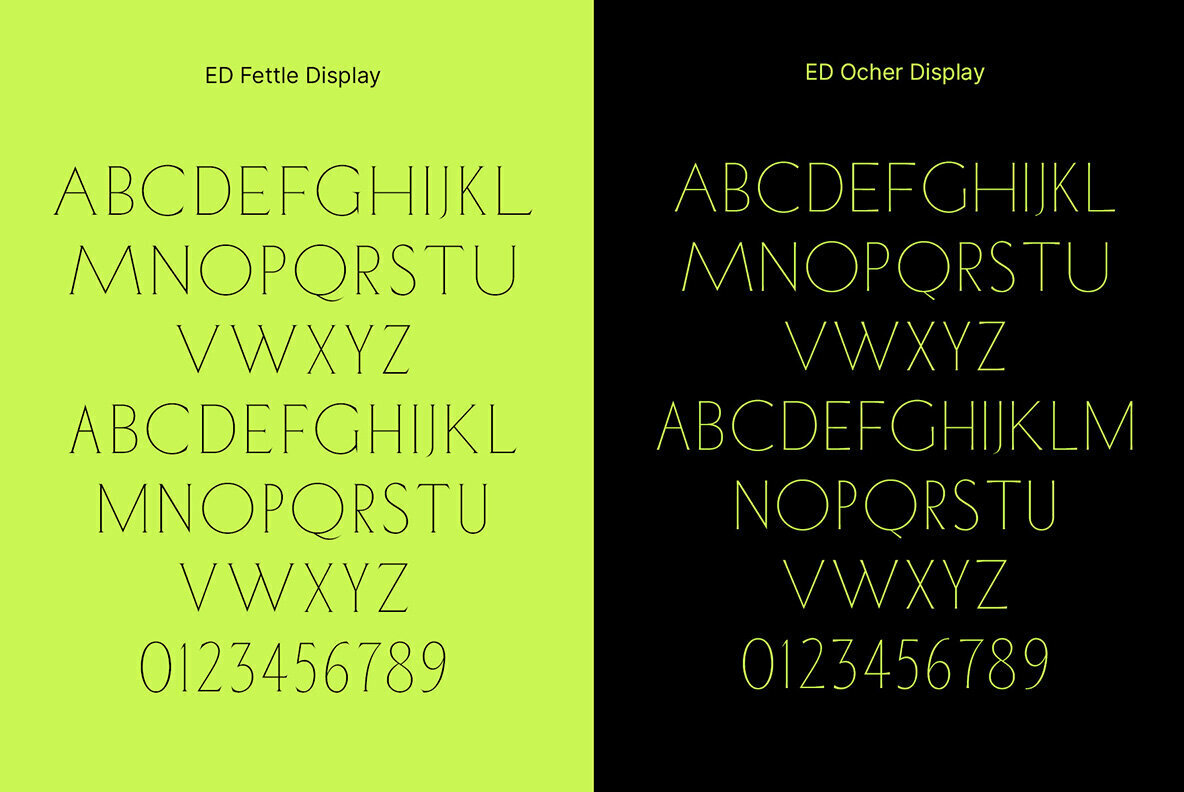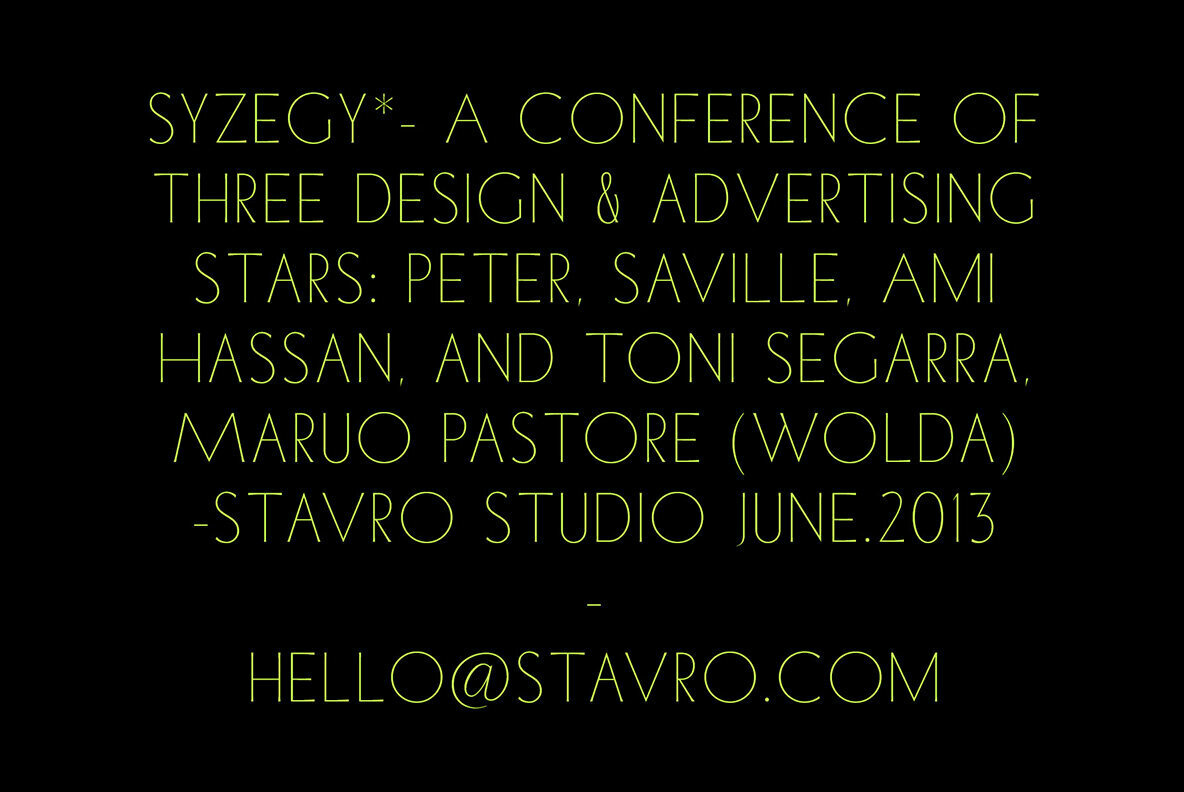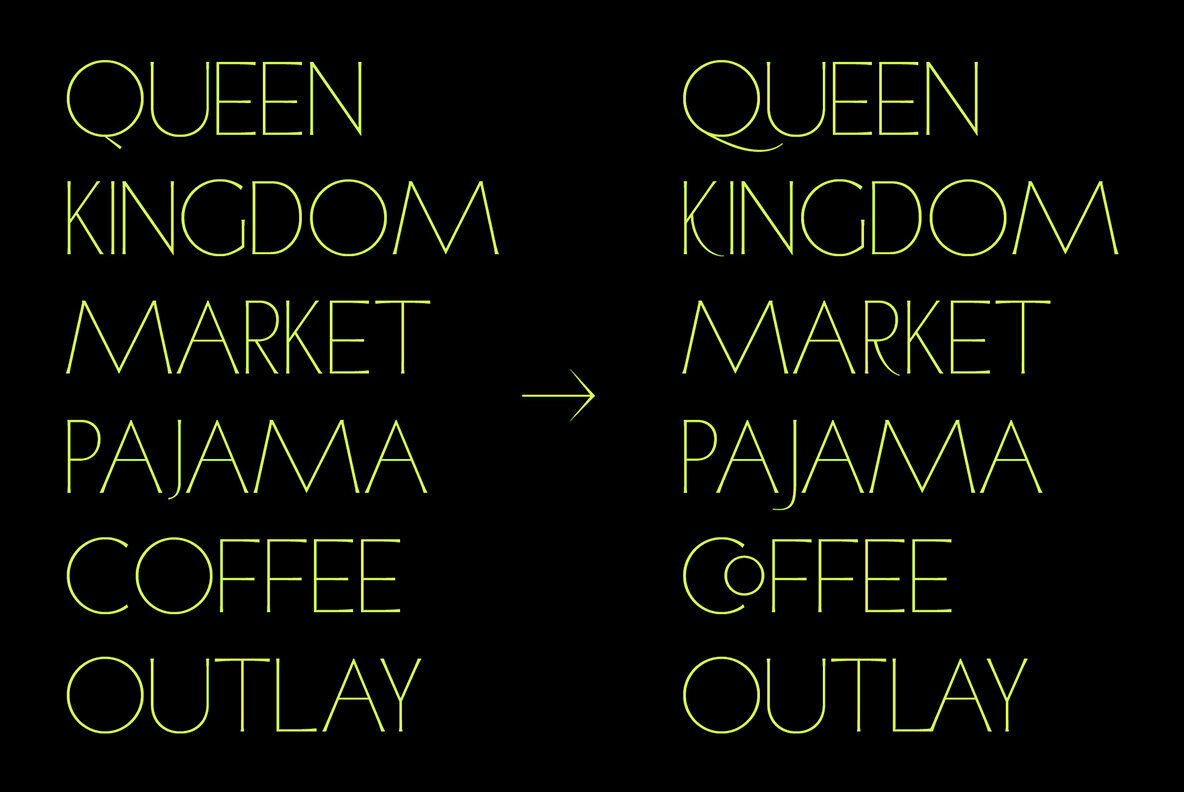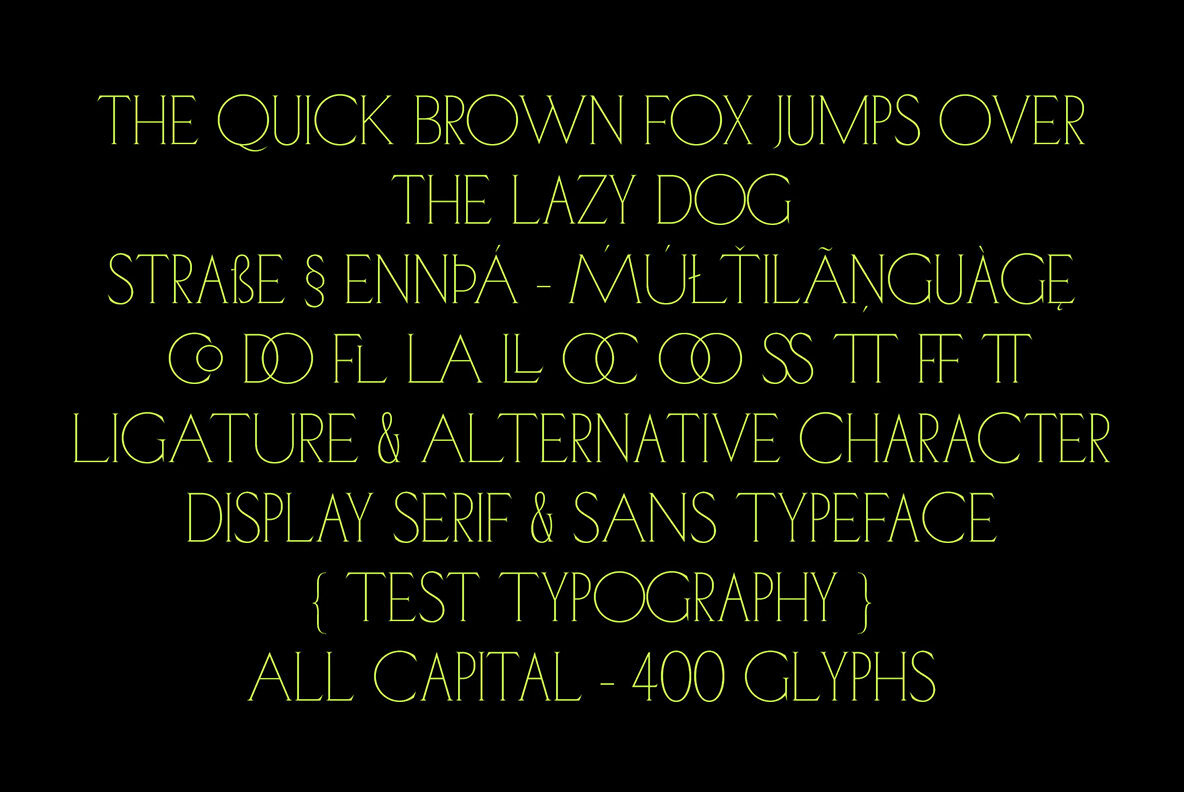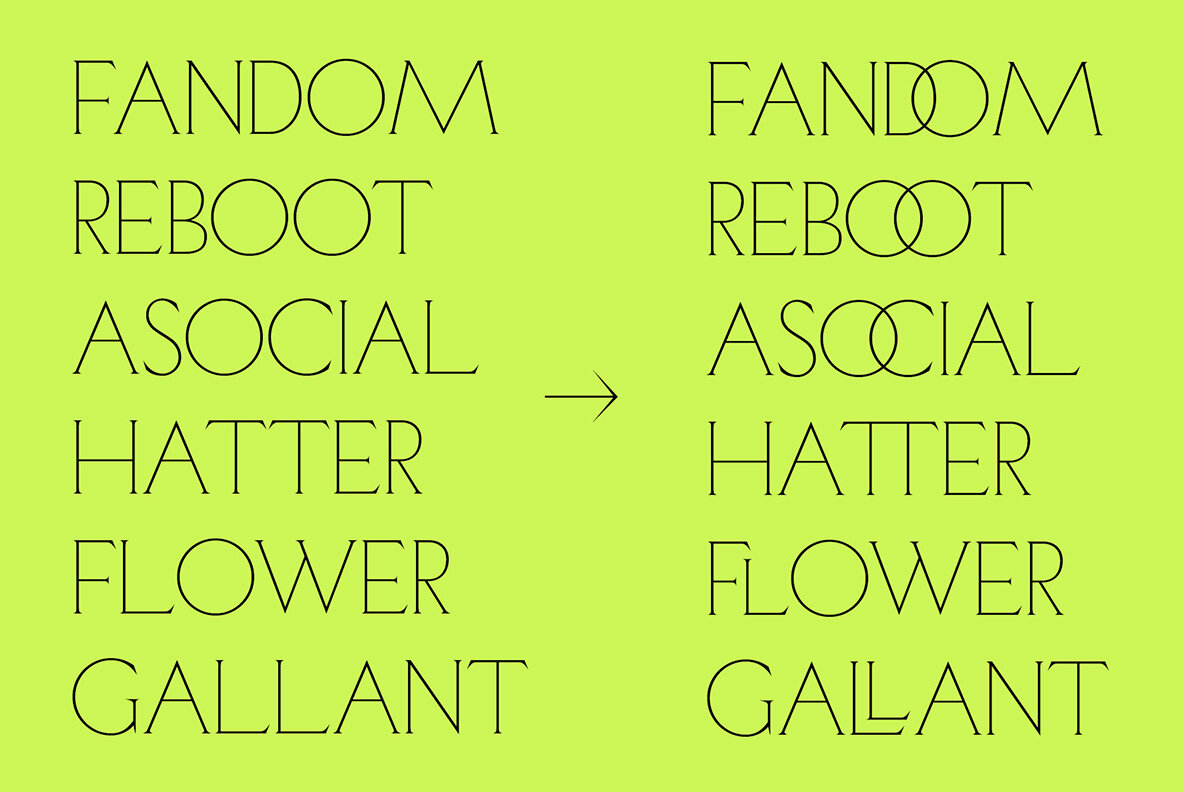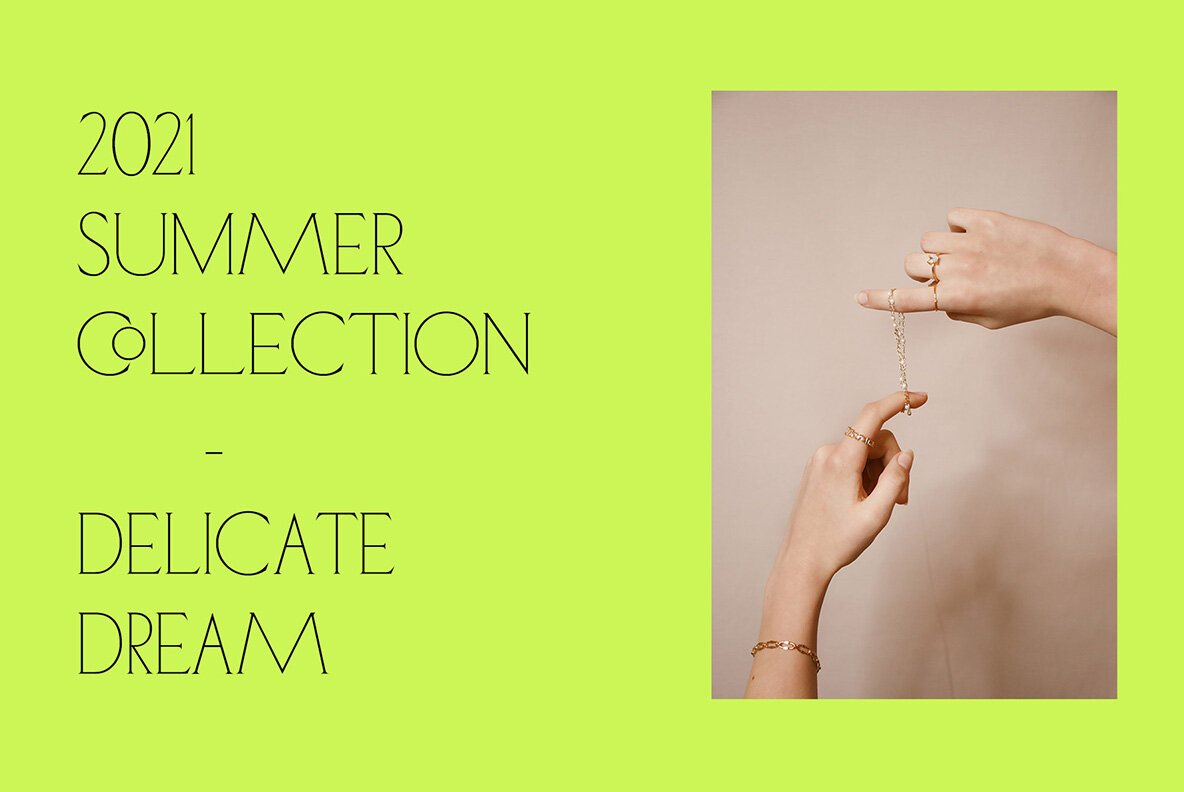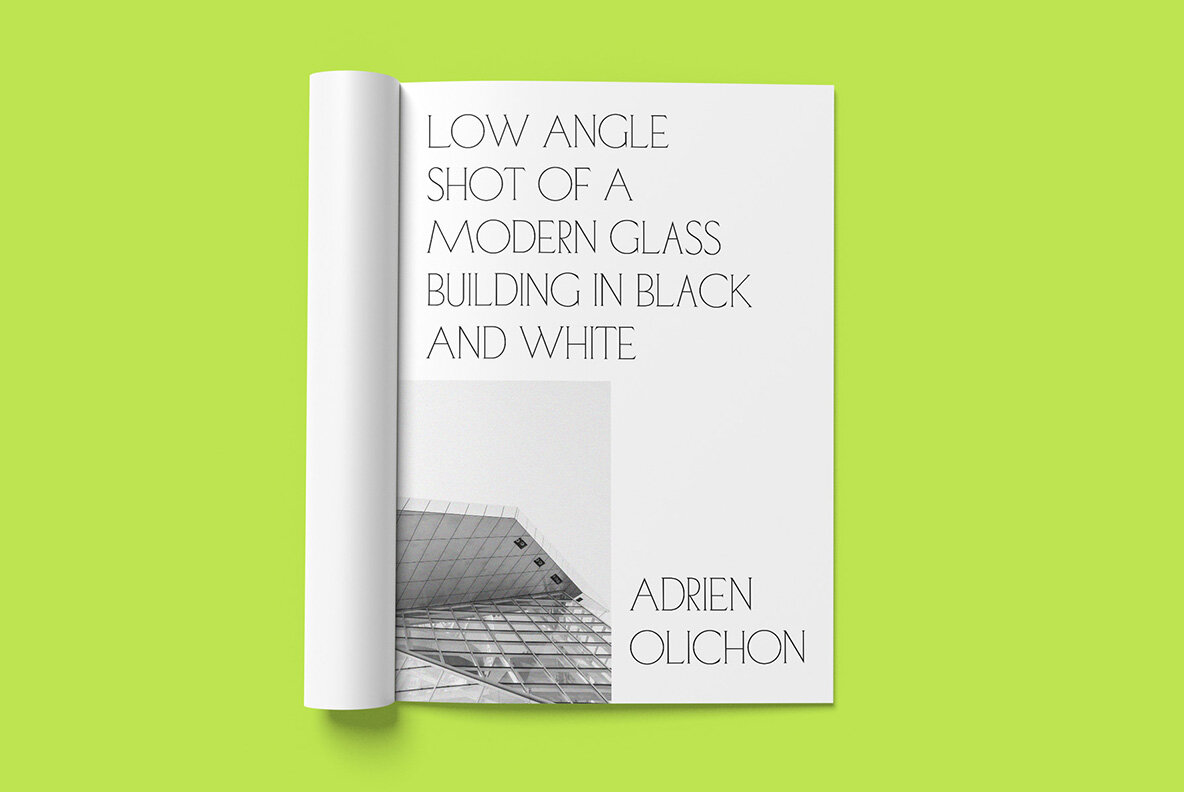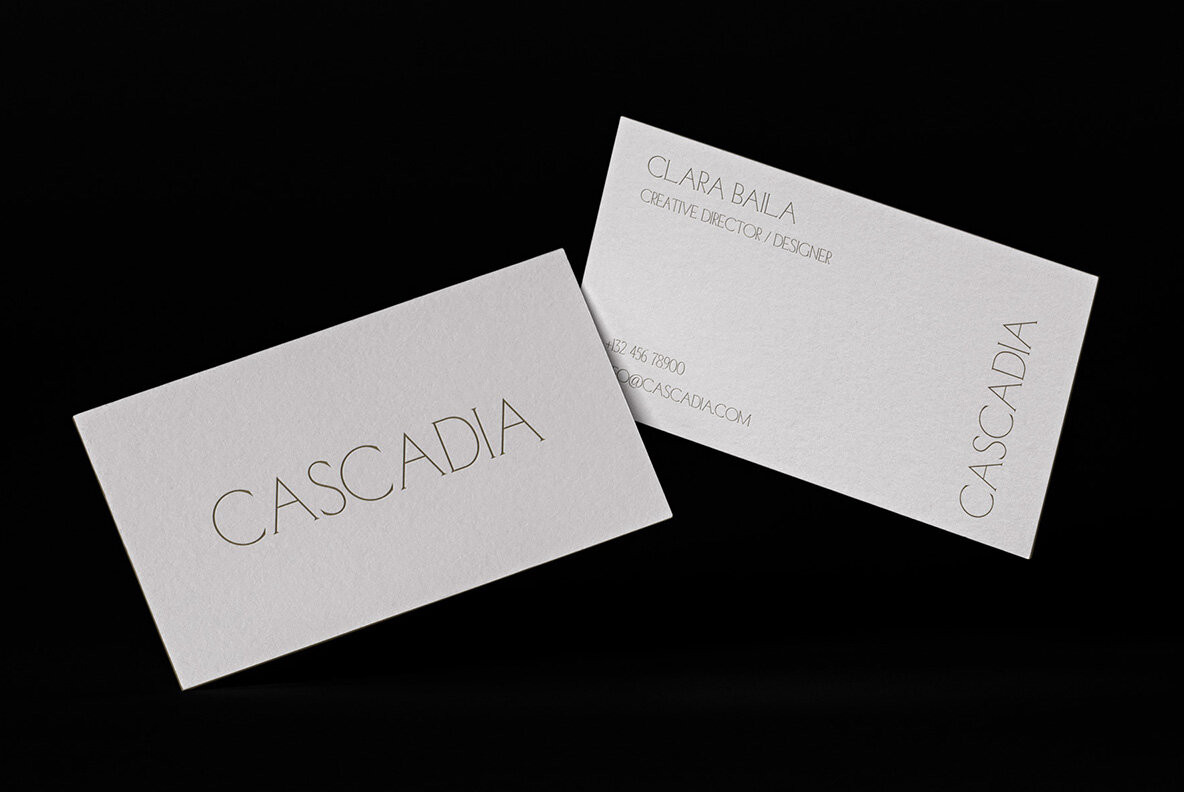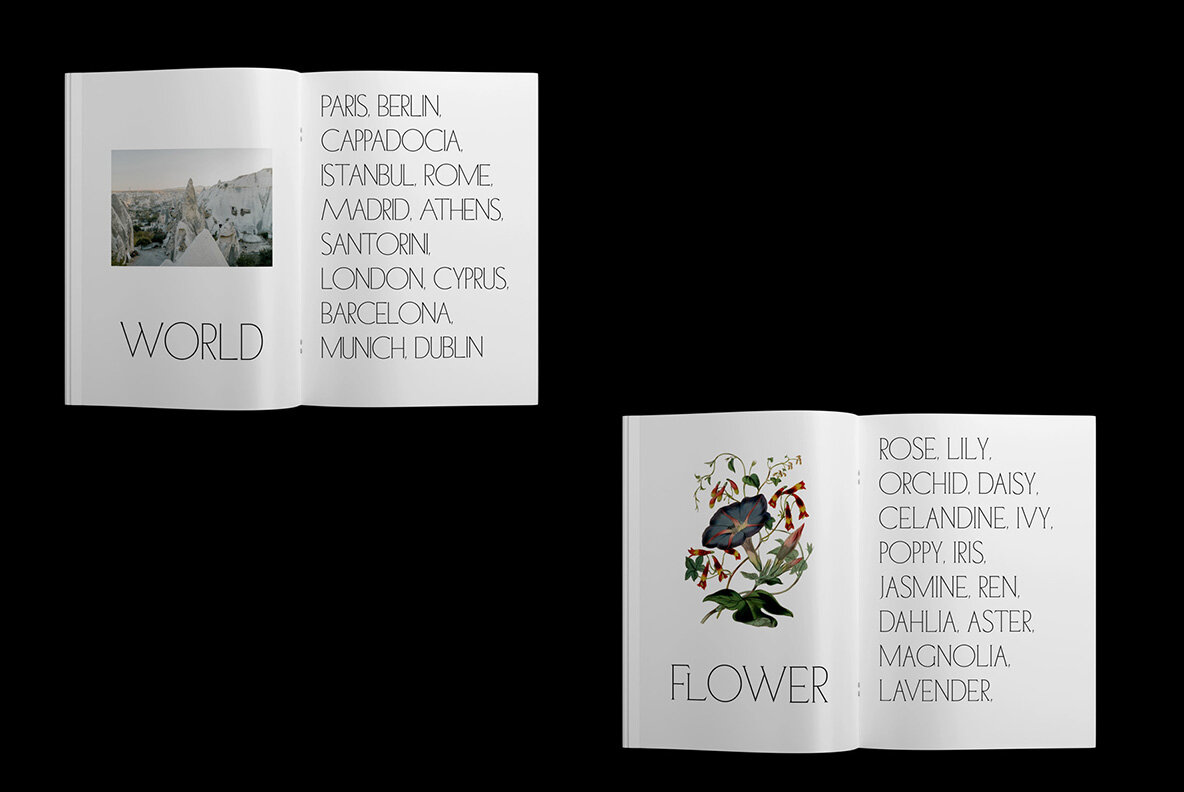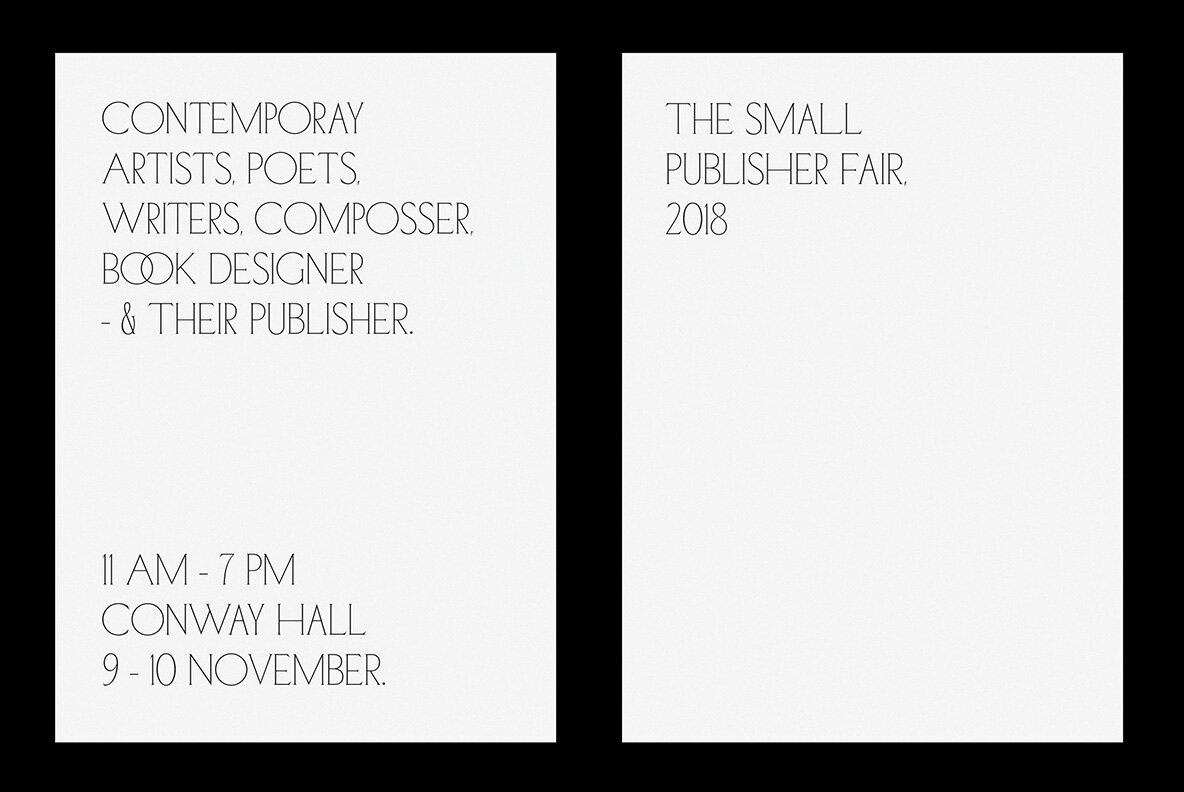
ED Fettle and Ocher Font
ED Fettle & Ocher by Emyself Design combines serif and sans serif styles to deliver a sophisticated yet versatile typography option. The font's thin width complements a range of design needs, making it a suitable choice for both contemporary and classic aesthetics. Comprising solely of capital letters, ED Fettle & Ocher brings a refined touch to design projects. The font boasts ligatures such as CO, FL, and SS, offering stylistic flexibility. This font’s multilingual support ensures wider applicability, enhancing its appeal across different languages and regions. Features: The versatility of ED Fettle & Ocher makes it ideal for magazine layouts, book covers, apparel branding, and logo creation. Its elegant design ensures that your work radiates class and appeal, while seamlessly integrating into diverse creative projects.ED Fettle & Ocher: An Elegant Duo for Versatile Designs